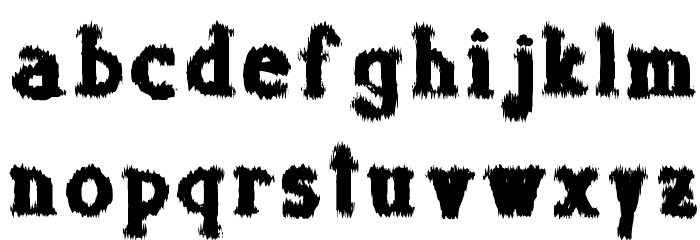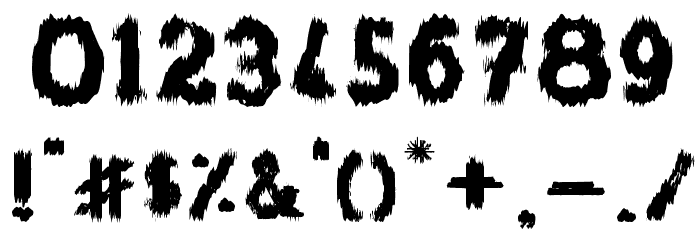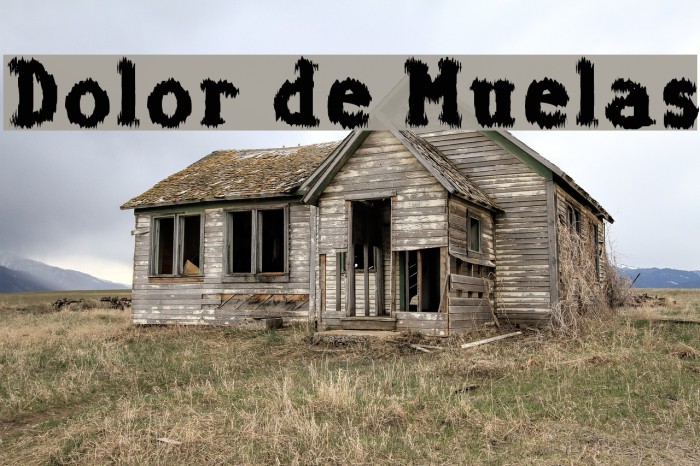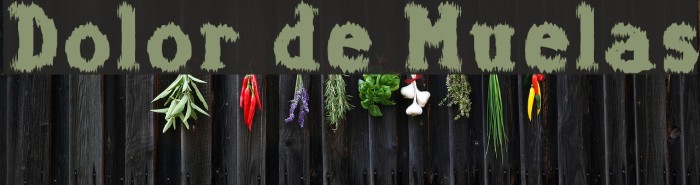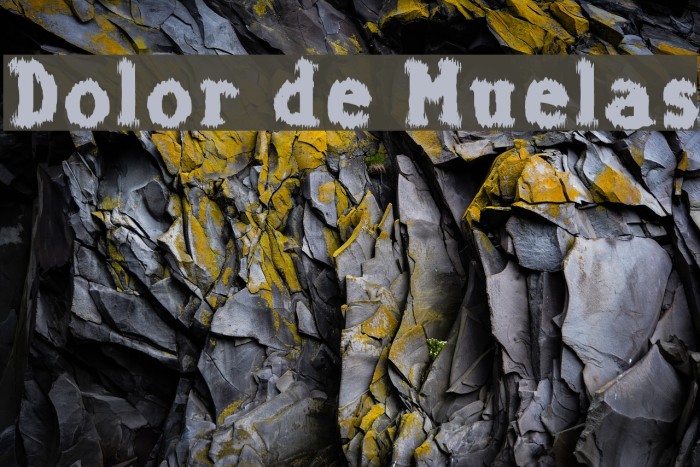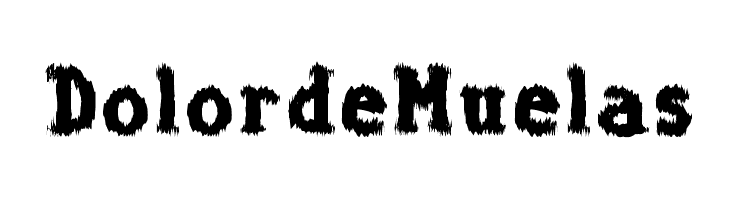
Dolor de Muelas Font
This font features a highly decorative and distressed style, with each character appearing as if it has been roughly carved or eroded. The edges are uneven and jagged, giving it a unique, organic texture that resembles natural decay or wear. This design choice creates a bold and eye-catching appearance, making it ideal for projects that require a dramatic and unconventional look. The characters maintain a consistent weight throughout, with a medium contrast between thick and thin strokes, adding to its rugged charm. The font's overall style is distinctly modern with a touch of grunge, making it suitable for creative and artistic applications.
A decorative, distressed font with jagged edges and a bold, grunge style.
- Proposed Projects: Ideal for album covers, horror movie posters, edgy branding, and artistic projects.
- Overall Style: Modern, Grunge